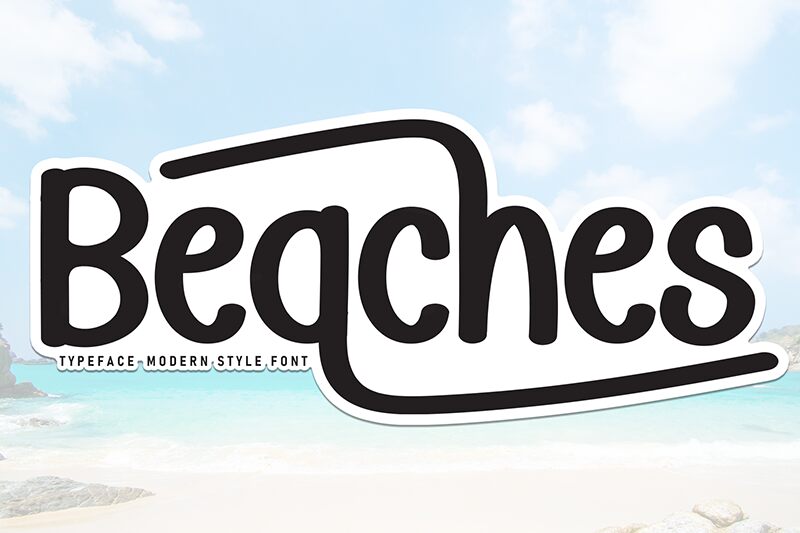
Beaches
Beaches font by Andi Moz is an informal handwritten font with a smooth appearance and a casual feel. Its hand-drawn style, relaxed vibe, rounded angles, and thin strokes give it an organic look which is further emphasized by the wise kerning and fluid sizes of the characters.